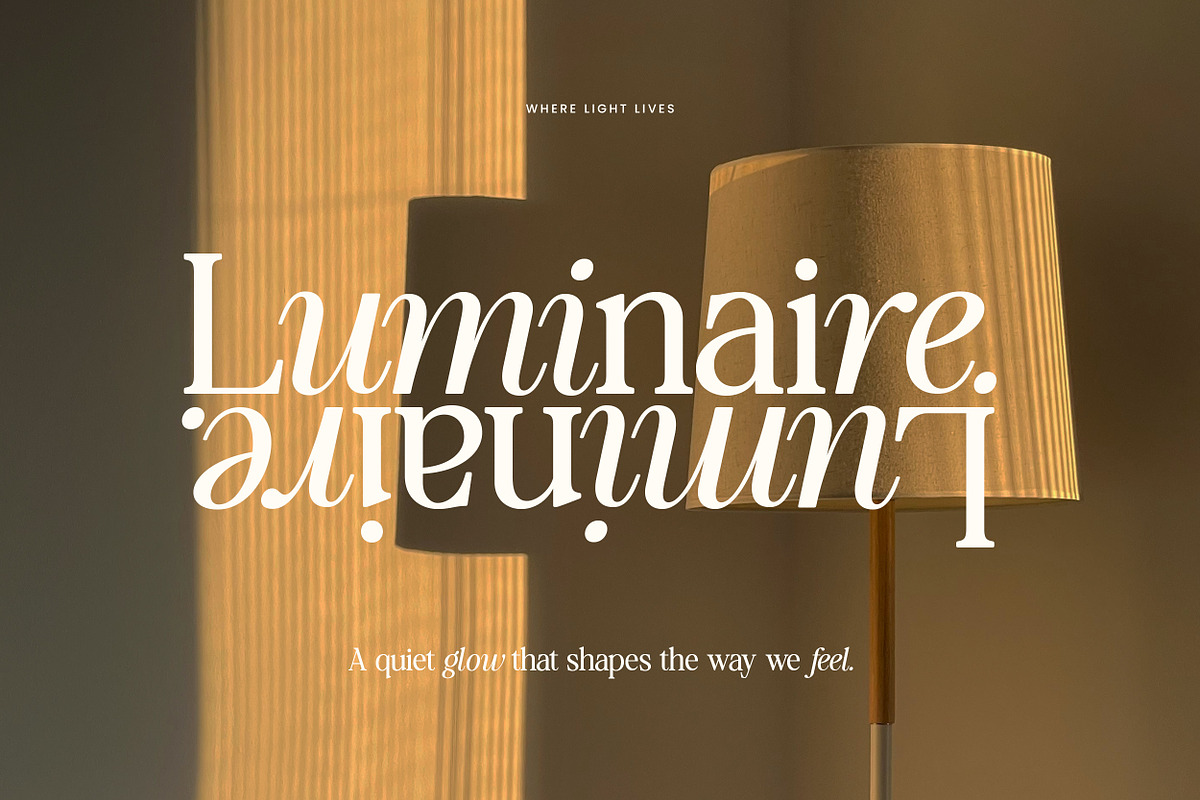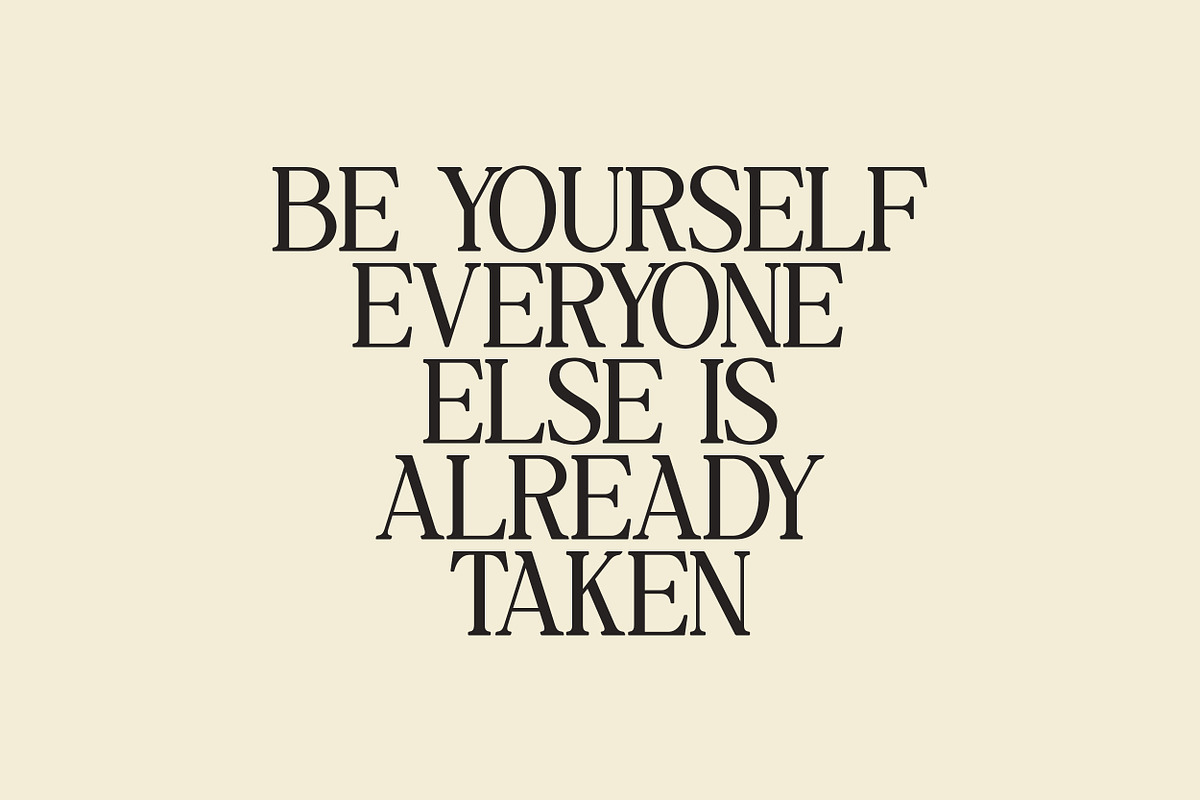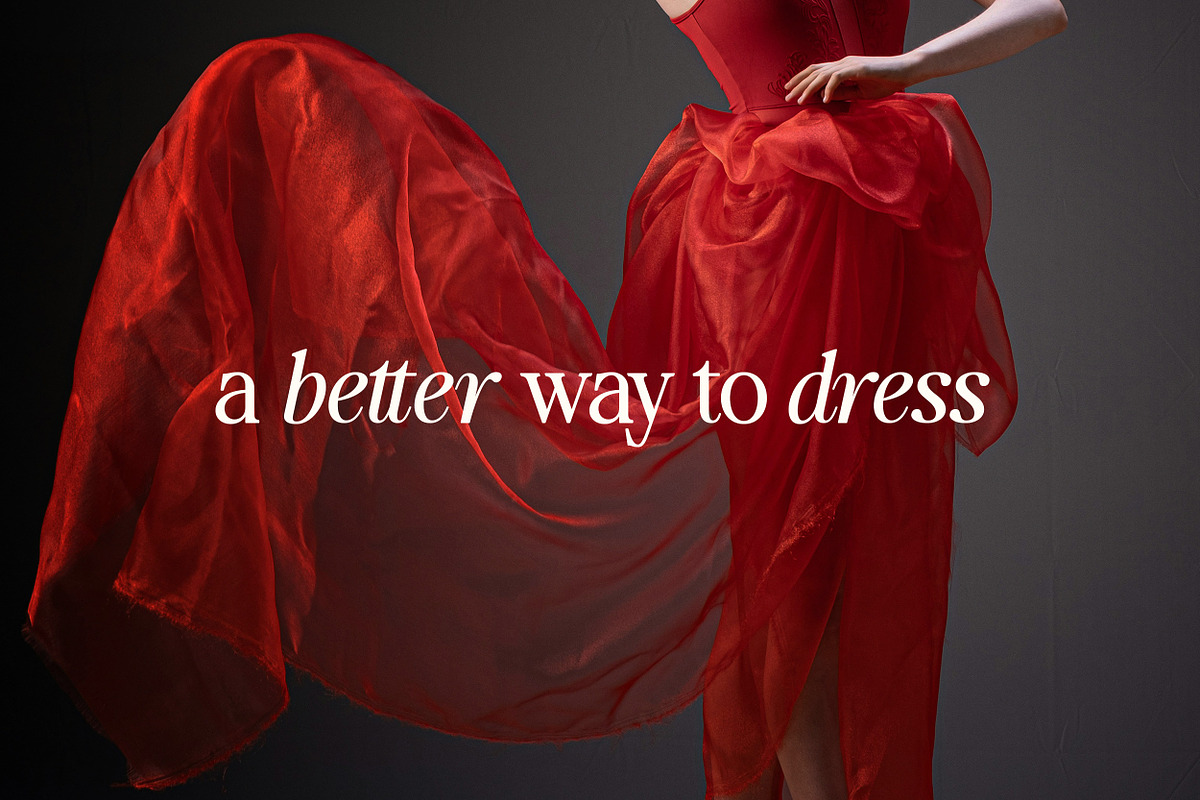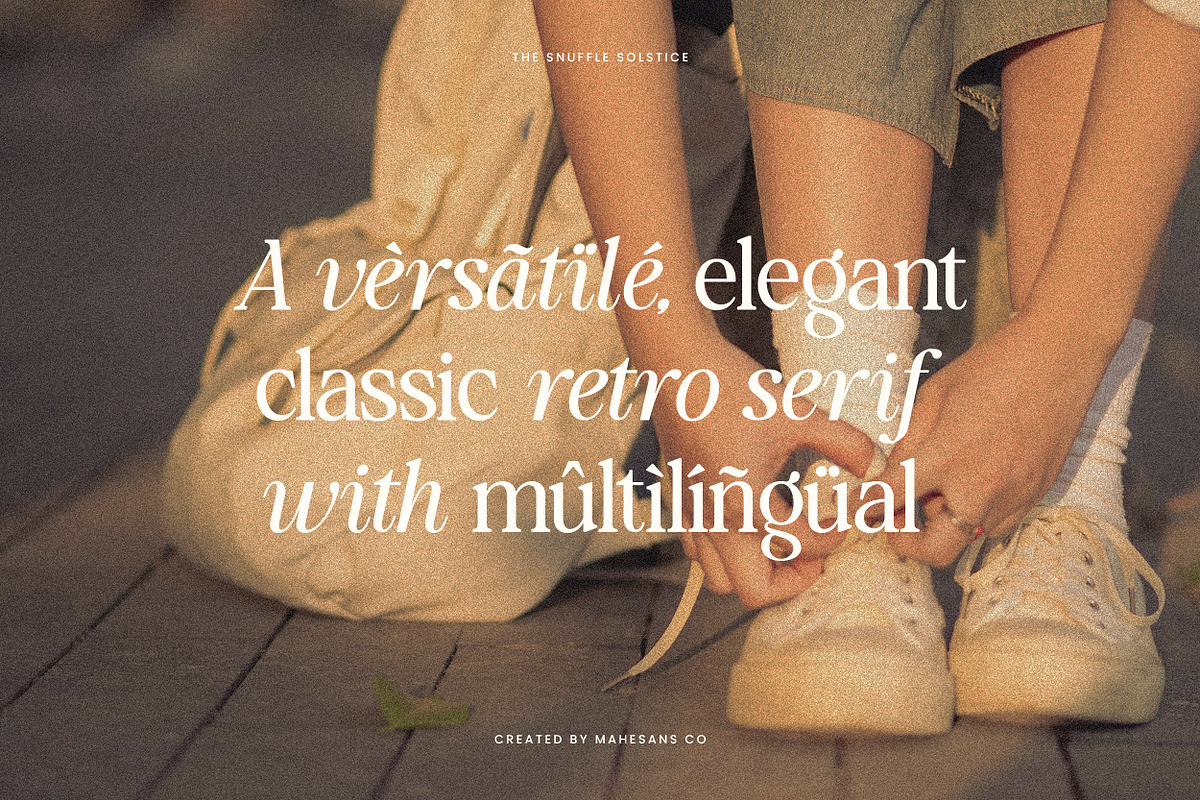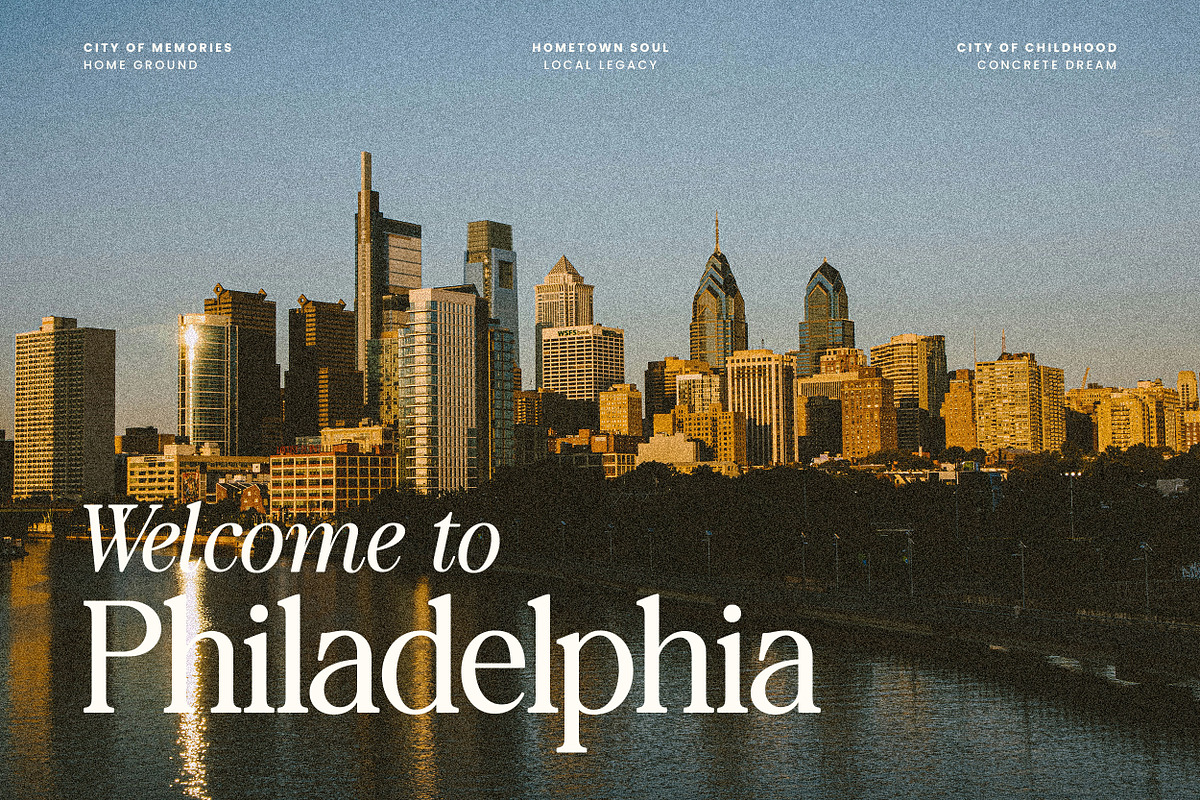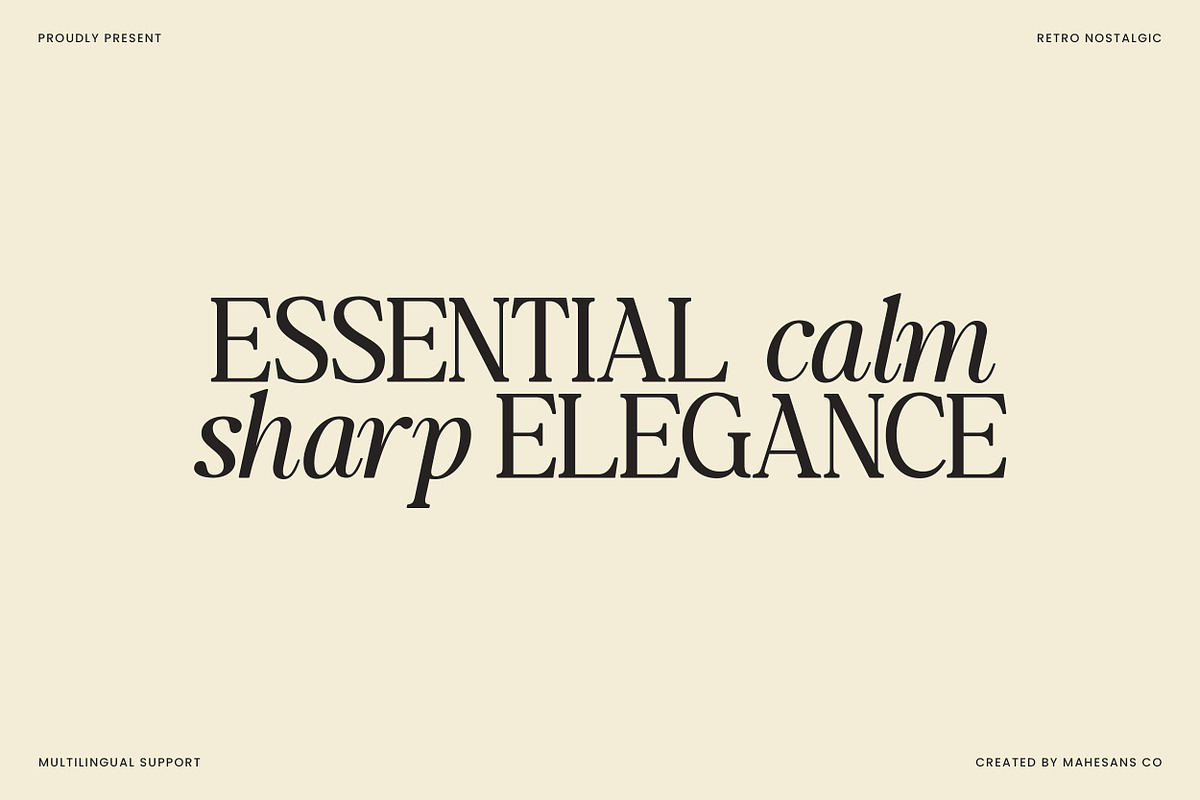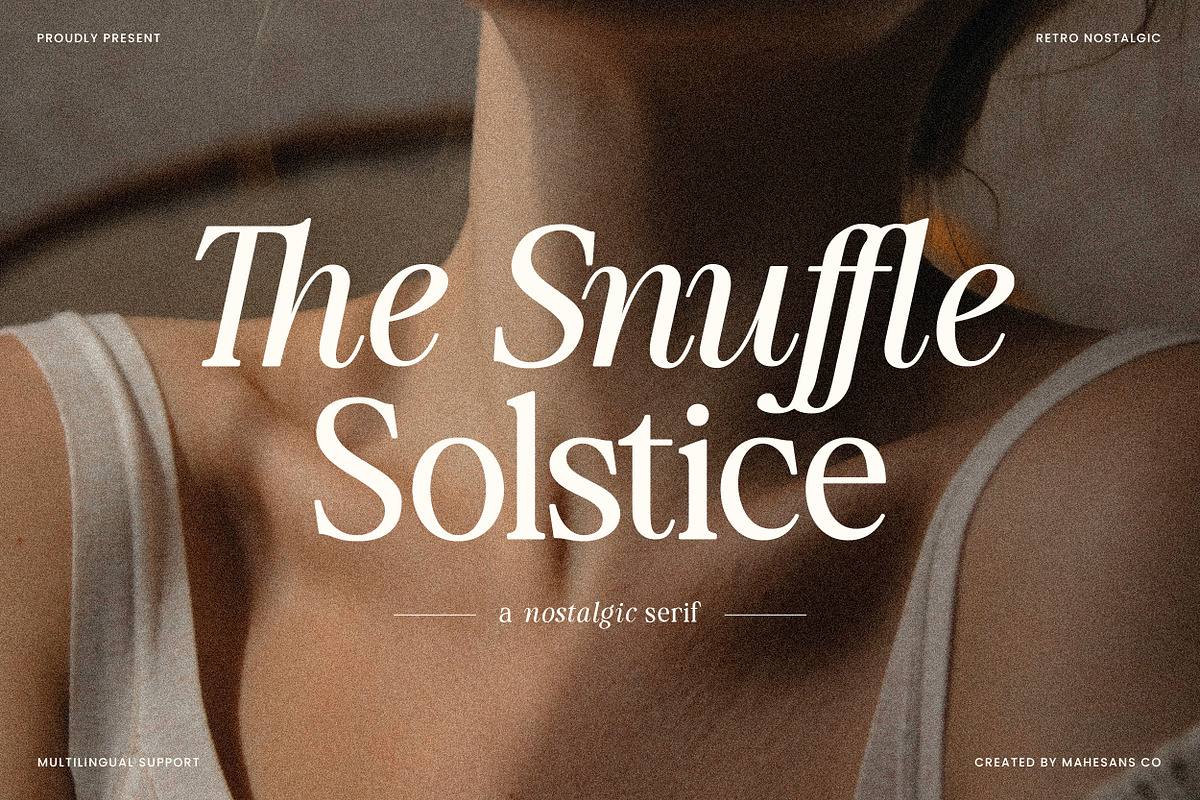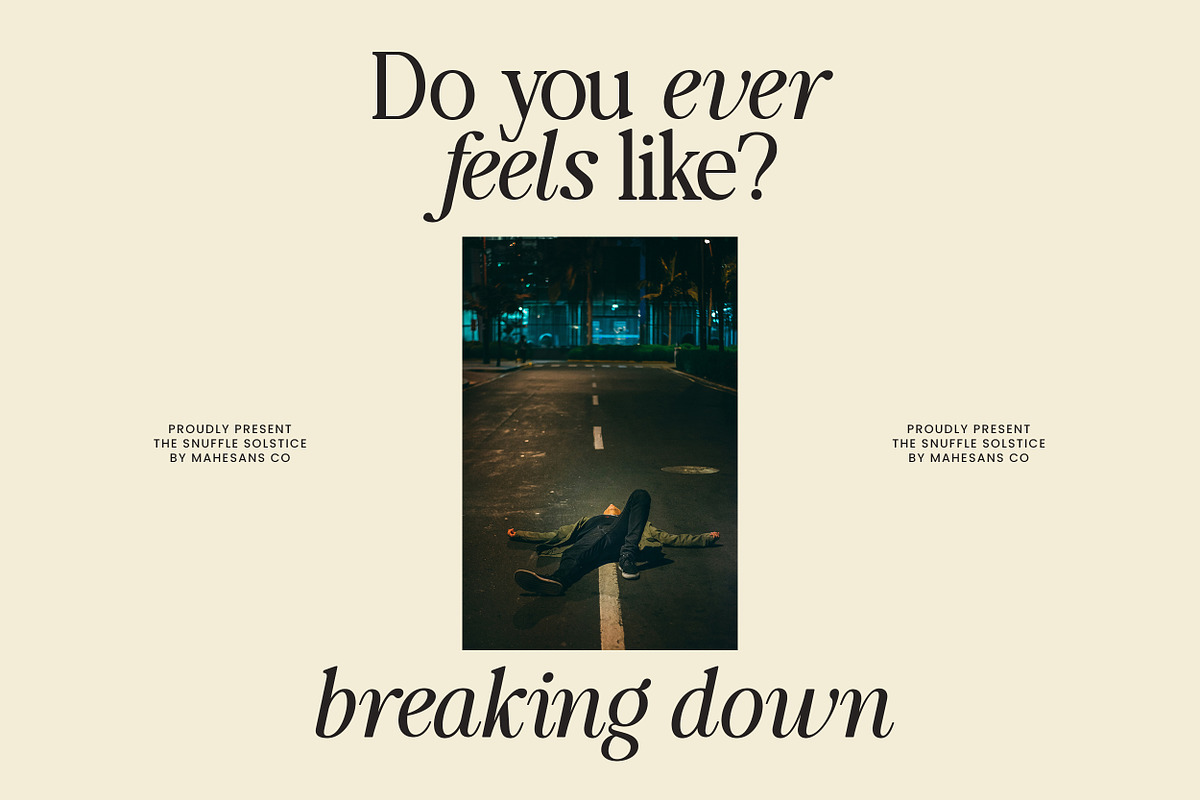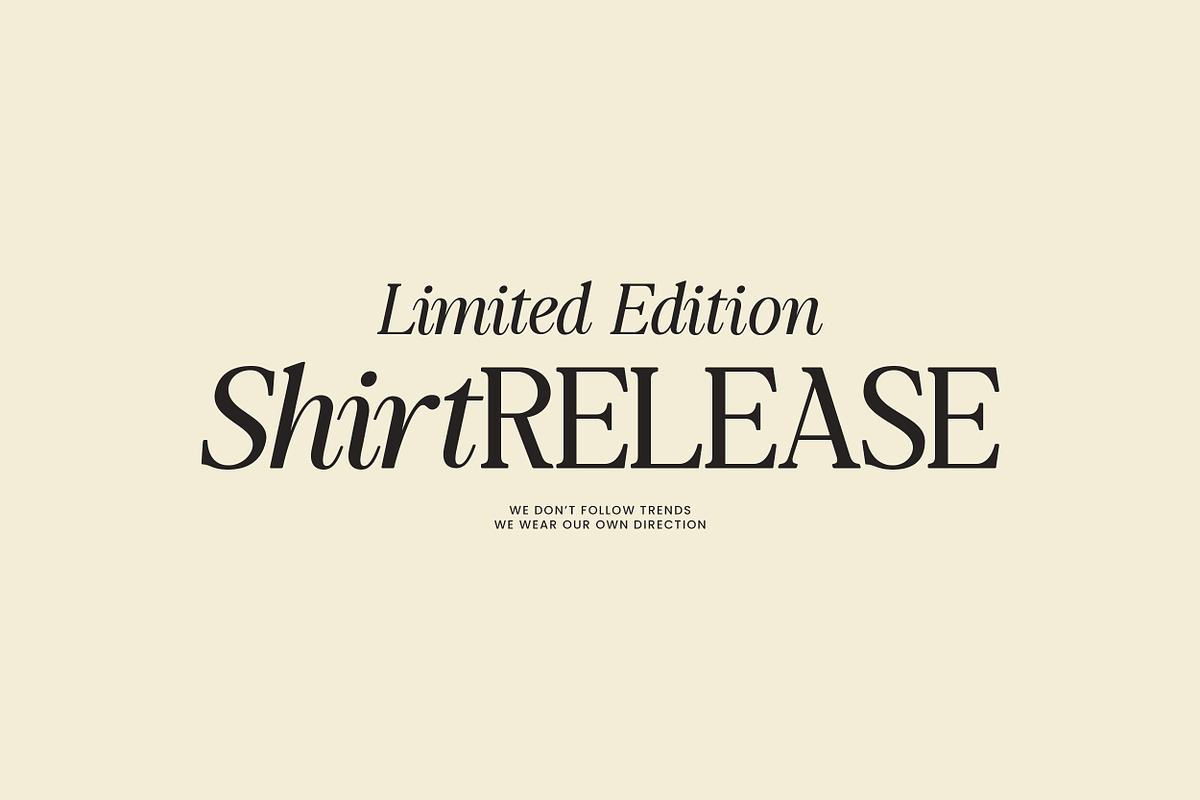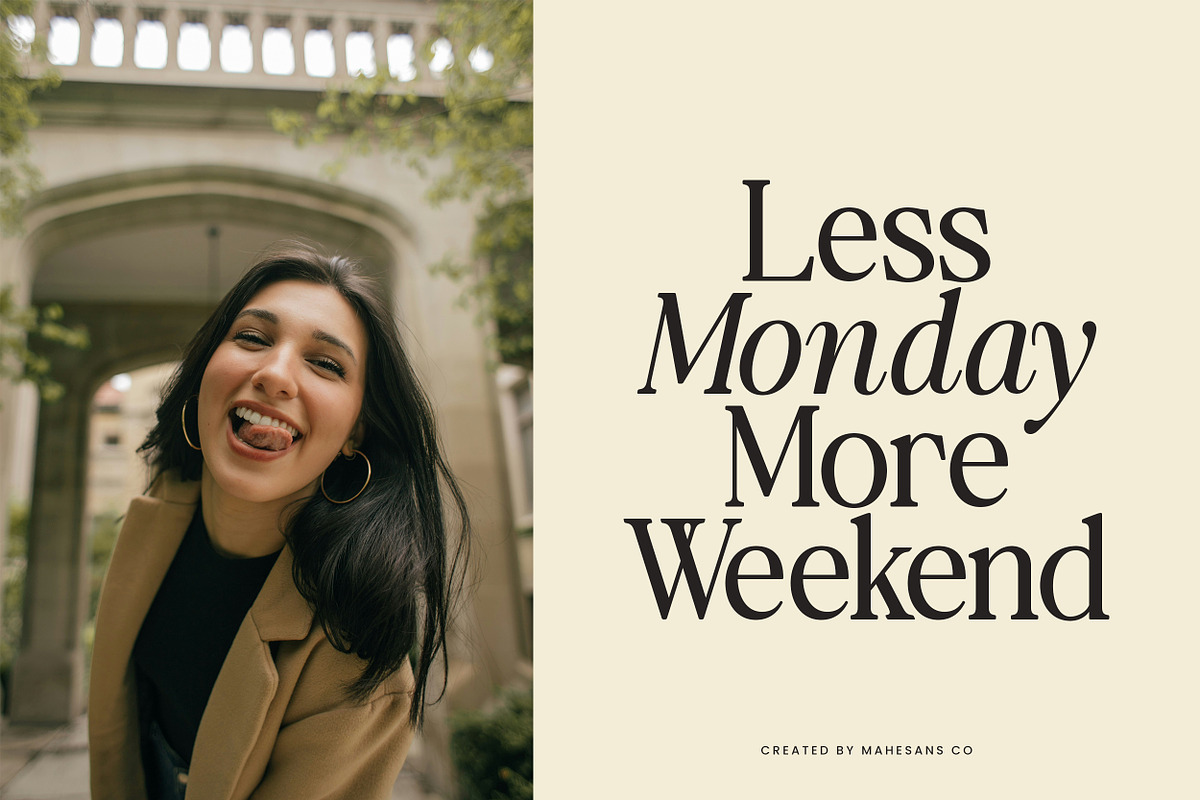
The Snuffle Solstice Nostalgic Serif
The Snuffle Solstice – Elegant Retro Serif Font for Branding, Apparel & Editorial Design
The Snuffle Solstice is a nostalgic retro serif typeface designed to bring warmth, elegance, and quiet confidence into your work. Inspired by classic typography and soft vintage moods, this font feels timeless never loud, never rushed.
With graceful curves and refined contrast, The Snuffle Solstice works beautifully for fashion branding, apparel designs, editorial layouts, packaging, posters, and lifestyle visuals. It carries a subtle emotional tone: calm, nostalgic, and thoughtfully crafted.
This typeface is made for designers who don’t chase trends, but build identity.
- Multilanguage